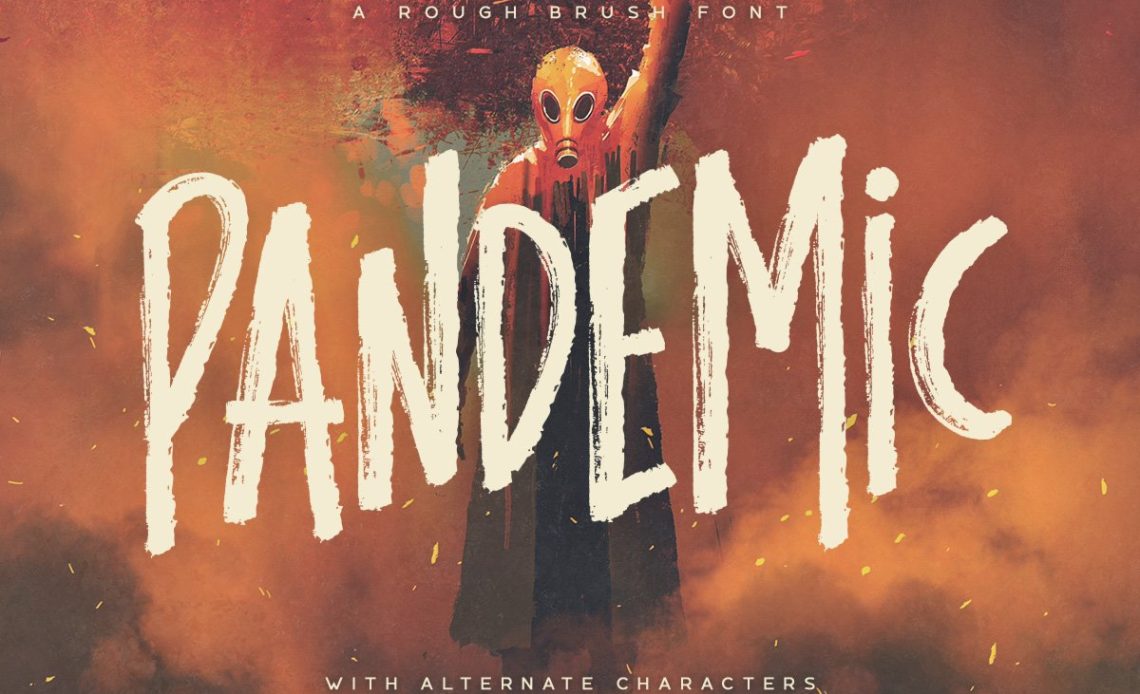
Introducing Pandemic - Brush Font, the perfect font for movie credits and other creative projects. This handwritten font is a part of the Brush Font Bundle created by the talented Mehmet Tugcu. Pandemic is a rough brush font with an edgy and unique style that will make your designs stand out.
One of the best features of Pandemic is its alternate letters that can be toggled with caps lock. This allows you to create even more variety in your designs and truly make them your own. Additionally, Pandemic includes multilingual uppercase letters, numbers, and punctuation, making it a versatile choice for any project.
Mehmet Tugcu is a highly skilled UI and Type designer who has poured his expertise and passion into the creation of Pandemic. This font is the perfect choice for designers who want to make a statement and evoke emotion in their audience. Whether you're designing a movie credit sequence, a poster, or a logo, Pandemic is sure to elevate your project to the next level.